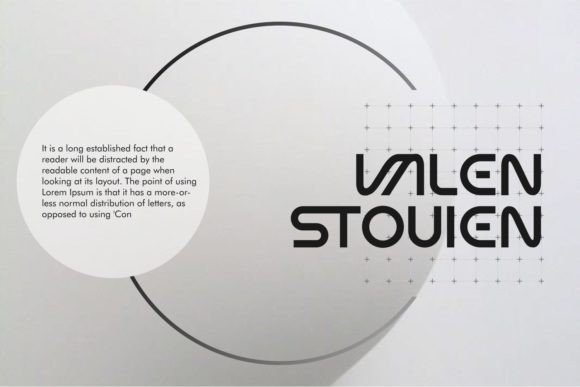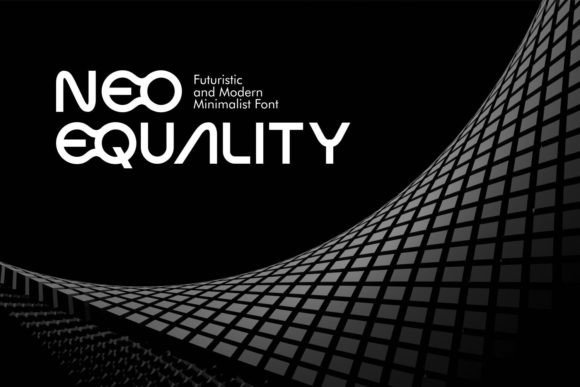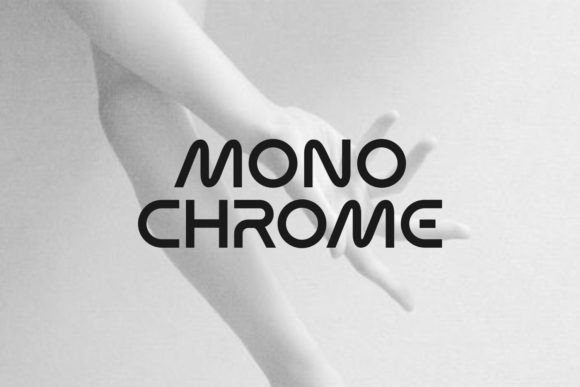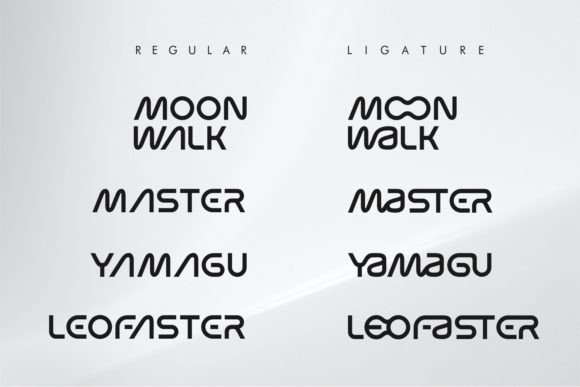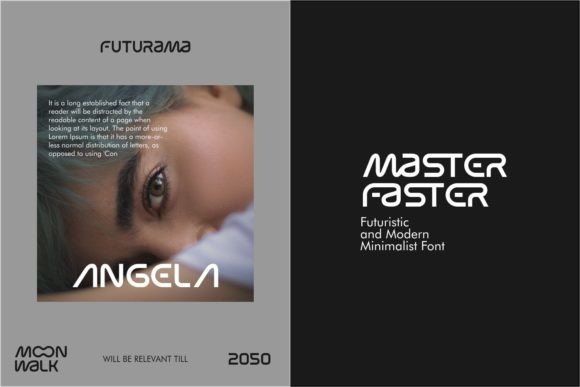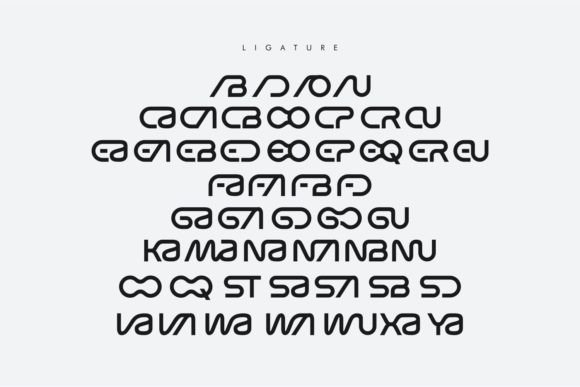
Introduction to Moon Walk Font
As a designer, there’s nothing quite like the thrill of discovering a new font that perfectly captures the essence of your creative project. For me, that moment came when I stumbled upon the stunning Moon Walk Font. Its minimalist form and elegant curves had me hooked from the very start.
The Moon Walk Font is more than just a pretty face – it’s a valuable design resource that can elevate your branding, templates, and editorial designs to the next level. With its versatility and high quality, this font is perfect for designers looking to add a touch of sophistication to their work.
Whether you’re working on a free download or a high-end project, the Moon Walk Font is sure to impress. Its clean lines and transparent background make it an ideal choice for designers who want to make a statement without overwhelming their audience.
- Unique, modern design with a touch of retro flair
Honest Review: Moon Walk Font
As a designer, I’m always on the lookout for high-quality design resources that can elevate my creative projects. The Moon Walk Font is one such resource that caught my attention, and I’m excited to share my honest review with you.
- ✨ What works well: The Moon Walk Font is a beautifully designed font that’s perfect for any creative project that requires a touch of elegance and sophistication. The font is highly customizable, and it comes with a transparent background, making it easy to use on any design surface.
- ⚠️ Limited font styles: While the Moon Walk Font is beautifully designed, it’s limited to a single style, which may not be ideal for designers who need a range of font options for their projects.
- ⚠️ Not ideal for large-scale use: Due to the font’s high-quality design, it may not be suitable for large-scale use, such as in posters or billboards.
Overall, I’m impressed with the Moon Walk Font, and I think it’s a great addition to any designer’s toolkit. While it may have some limitations, it’s a high-quality font that’s perfect for creative projects that require a touch of elegance and sophistication.
The Moon Walk Font is a high-quality, free download design resource that can elevate your creative project to the next level. With its unique style and transparent background, this font is perfect for designers looking to add a touch of elegance to their work.
The Moon Walk Font is perfect for designers who want to create a unique and eye-catching design. Some common use cases include:
- Logo designs and branding materials